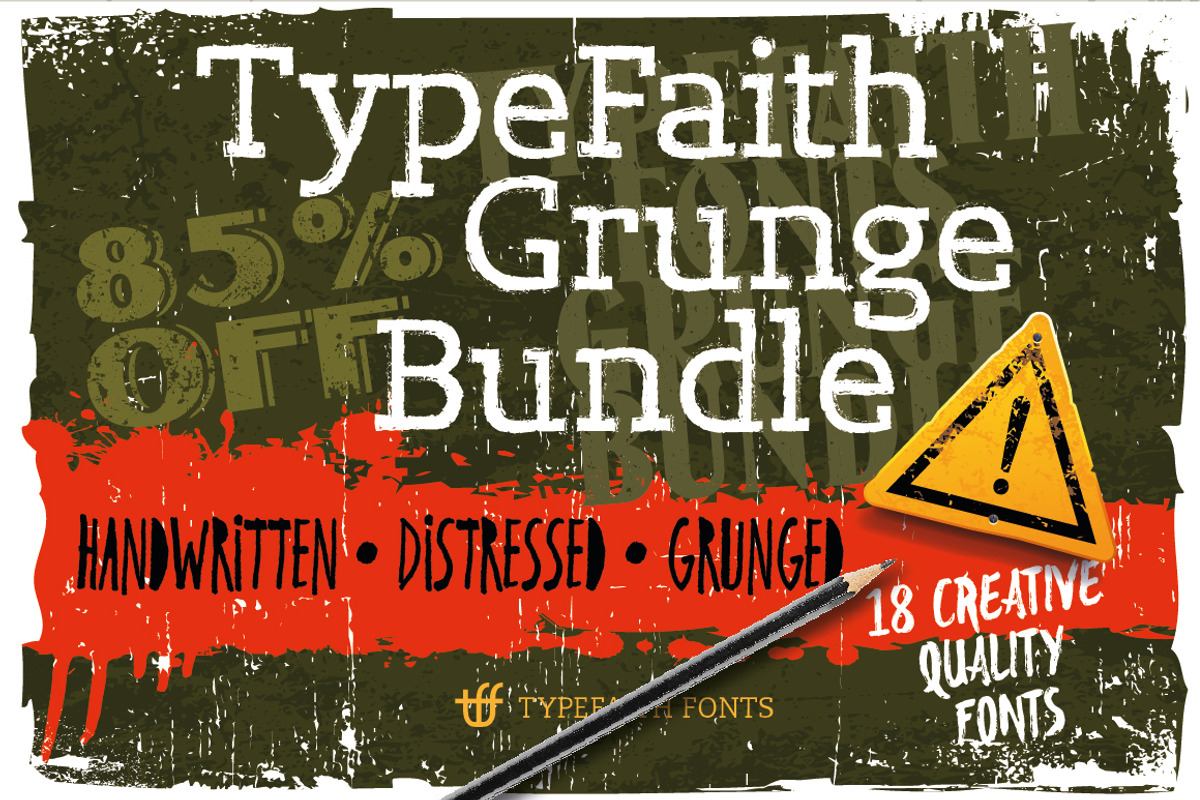
TFF Grunge Bundle Font Free Download is a powerful collection of gritty, textured, and distressed fonts designed to bring a raw, rebellious aesthetic to your designs. With a variety of fonts ranging from rough, hand-drawn looks to more structured grunge styles, this bundle is perfect for creating edgy designs, rock posters, music album covers, streetwear branding, and anything that requires a rough, urban vibe.
Each font in the bundle brings its own unique grunge texture and character, allowing you to create diverse, eye-catching projects that stand out with bold visual appeal.